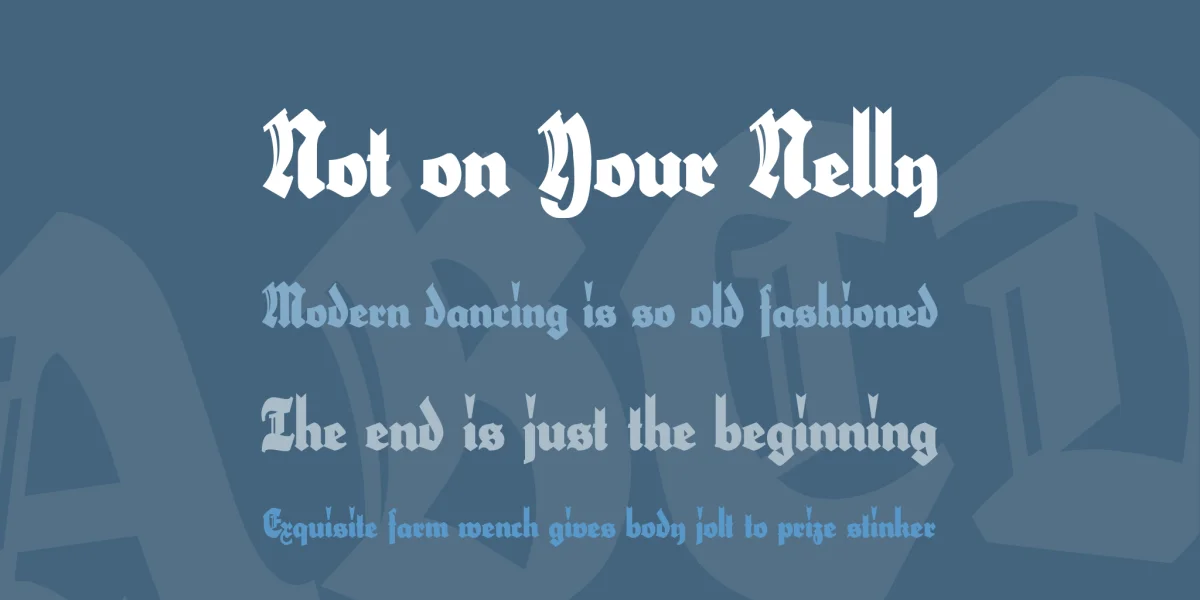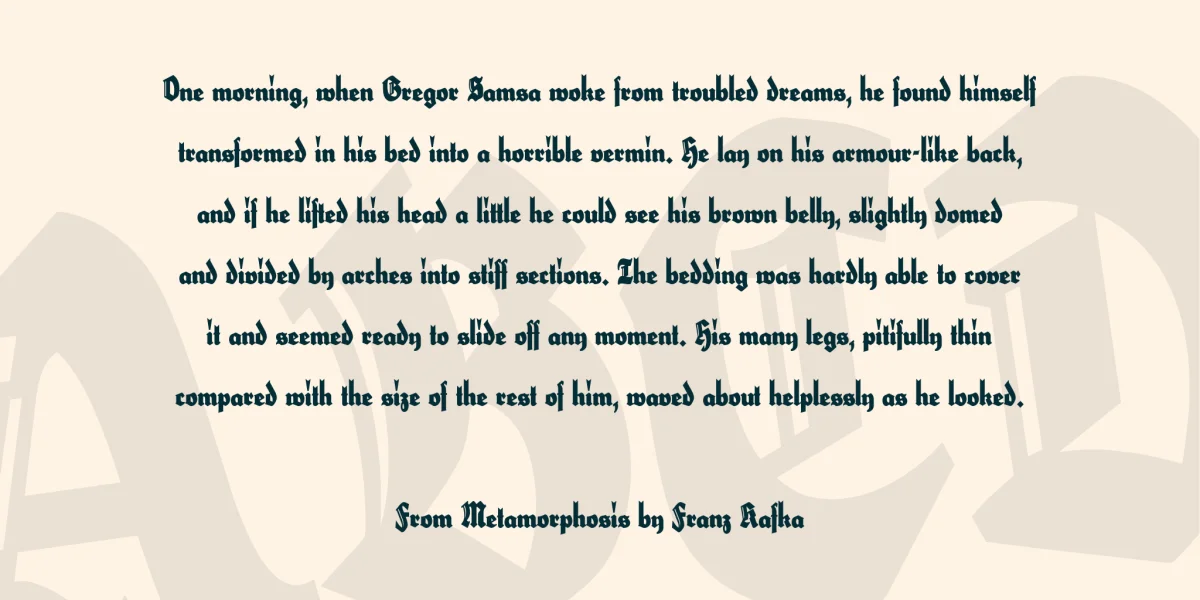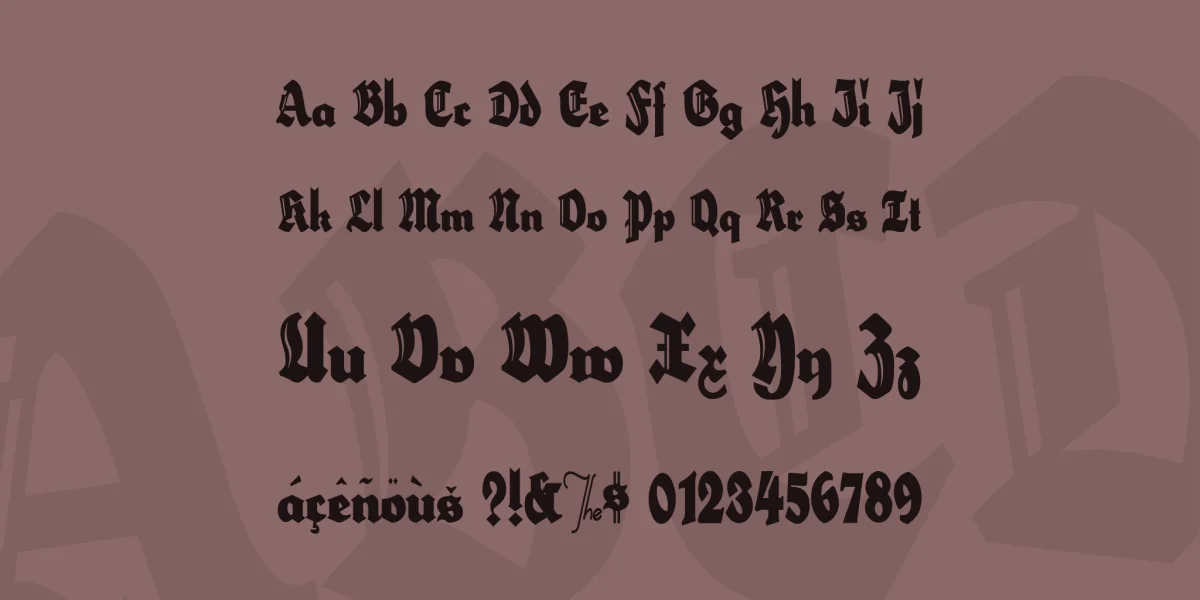
I had been looking for a good Deco German blackletter font, and finally found it with an offering called Poseidon. I wish I could credit the original designer, but the work was unsigned. I cleaned up the design to make it a little less fussy; the result is a bold, strong font with a serious Gothic feel. Incidentally, the name translates from German as “Duke of Earl.” (Faulty metrics corrected, alternate Tall version generated, file fixed and recompiled by MEG 2-10-2001.)